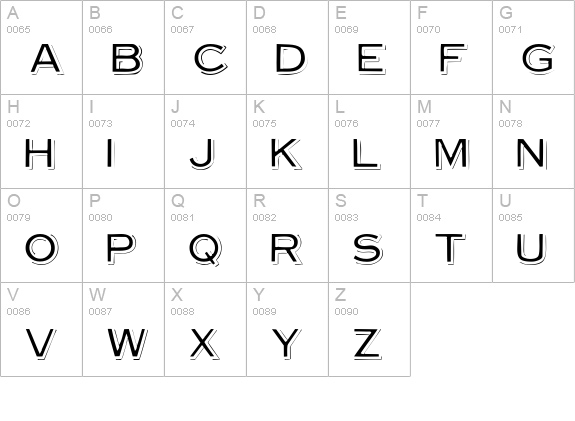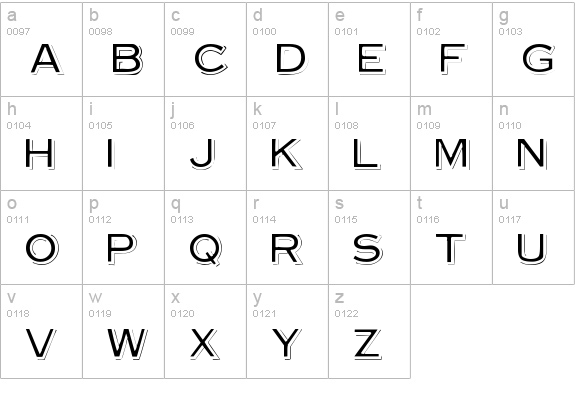
VinylCaps Font Details
VinylCaps font is a bold and stylish typeface that exudes a sense of retro charm and vintage cool. With its sleek and rounded letterforms, this font is perfect for adding a touch of nostalgia to any design project. Whether you're creating a logo, poster, or album cover, VinylCaps will make a statement and stand out from the crowd. One of the best features of VinylCaps font is that it is free. Yes, you read that right! This fantastic font is freely available to download at FontsMarket.com. This means that you can add this amazing typeface to your collection without spending a dime. So, go ahead and unleash your creativity with VinylCaps font, knowing that you're not breaking the bank. What sets VinylCaps font apart is its versatility. It can be used in various contexts, from branding and advertising to web design and social media graphics. Its bold and eye-catching appearance will captivate your audience and leave a lasting impression. Whether you're aiming for a classic vintage feel or a modern retro vibe, VinylCaps font has got you covered. The attention to detail in VinylCaps font is impeccable. Each letter is meticulously crafted to ensure a harmonious balance between elegance and legibility. The smooth curves and sharp edges create a captivating visual rhythm, making this font a true work of art. With VinylCaps font, you have the freedom to experiment and play around with different design elements. Its versatility allows you to mix and match uppercase and lowercase letters to create unique and eye-catching compositions. Whether you're going for a bold and impactful look or a more subtle and refined aesthetic, VinylCaps font will help you achieve your desired outcome. So, why wait? Head over to FontsMarket.com and download VinylCaps font for free. Unleash your creativity and add a touch of retro chic to your designs. With this font in your arsenal, you'll be able to create stunning visuals that will leave a lasting impression on your audience. Don't miss out on this incredible opportunity to elevate your design game with VinylCaps font.